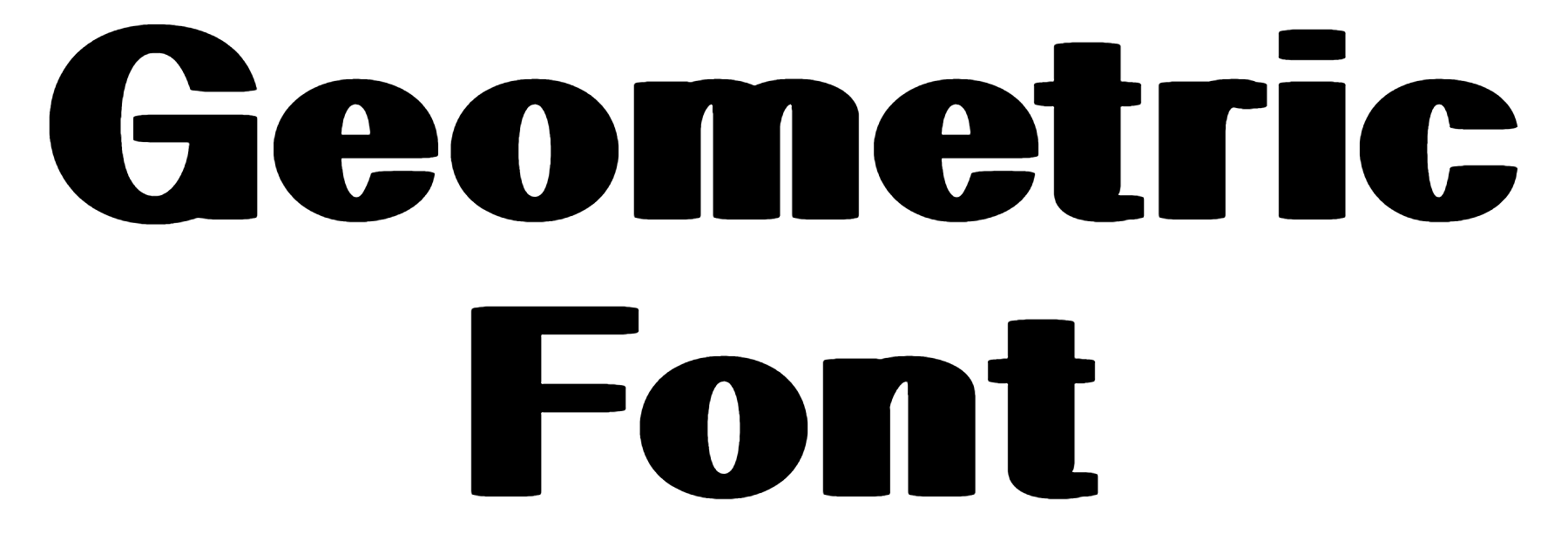
Geometric
Geometric is a sans serif font created by Paulo W (2006). Its clean letters skip the little "feet" (serifs) of traditional type, so it looks modern and reads well on screens. It's a free download, and you can try it with your own text in the preview above first.
- Designer: Paulo W
- Year: 2006 (from the copyright line in the font)
What You Can Type With Geometric
With complete upper and lowercase letters and all ten digits, Geometric is ready for real wording, not just a single headline. Everyday marks like &, !, ? and @ are there too. It has 15 accented letters, but not the full set for Spanish or French, so test any non-English words first.
Where Geometric Works Best
Geometric is a natural fit for websites, app screens and clean logos. It works for headings and body text alike. If the download has several weights, use a heavier one for titles and a lighter one for paragraphs.
Who designed Geometric font?
Does Geometric support accented letters?
Partly. Geometric has 15 accented letters, but not the complete set for Spanish, French or German. Type your words in the preview above to check before you use it.